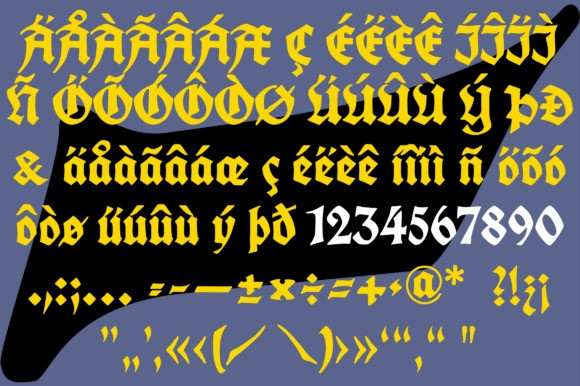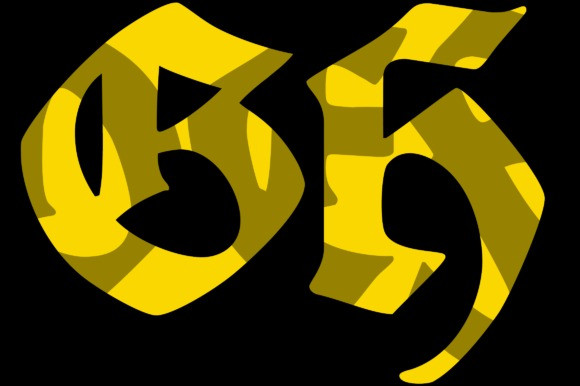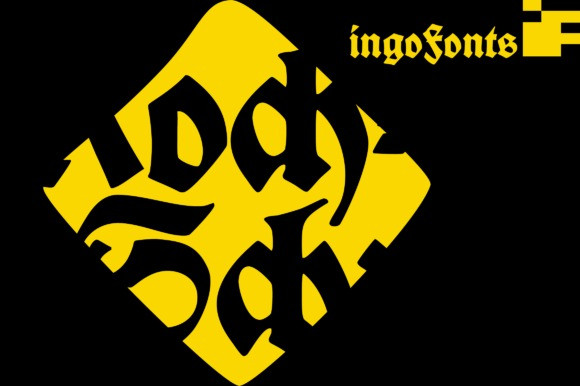
Koch Schrift Font
Koch Schrift Font is an amazing blackletter font with a bold twist. Get inspired by its vintage charm. Suitable for any design needs : logo, branding, modern advertising design, logos, poster quote, book / cover Title, editorial design, website / blog, card, t-shirts,…